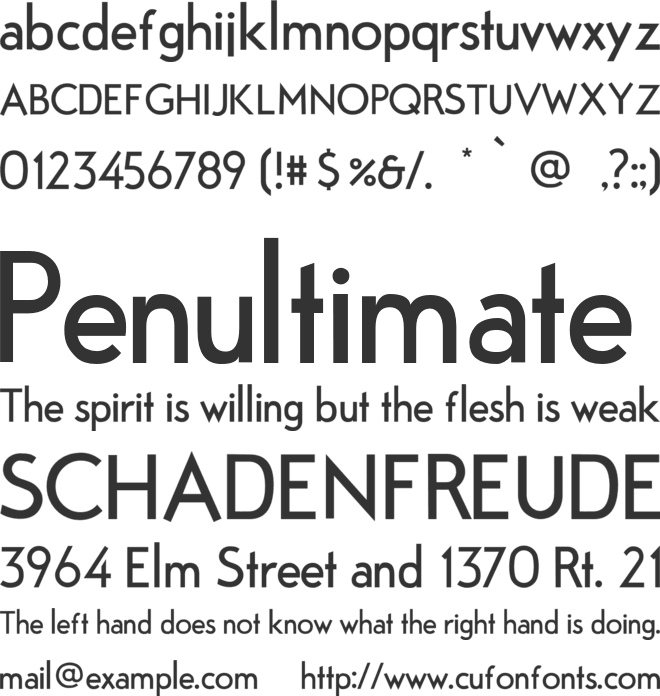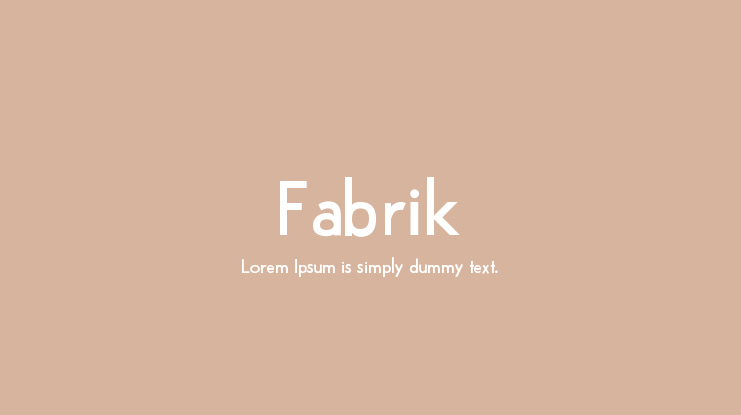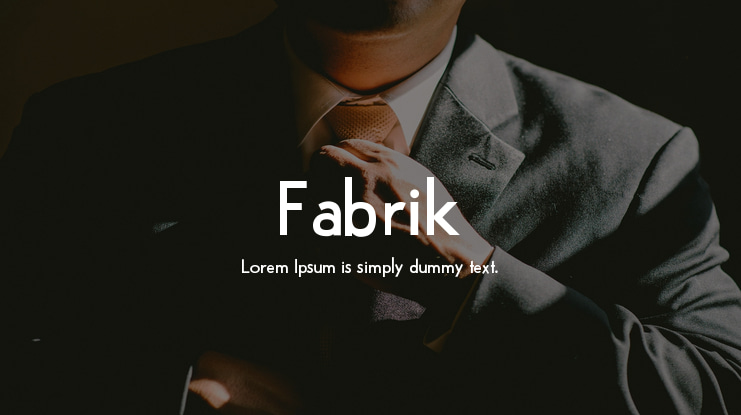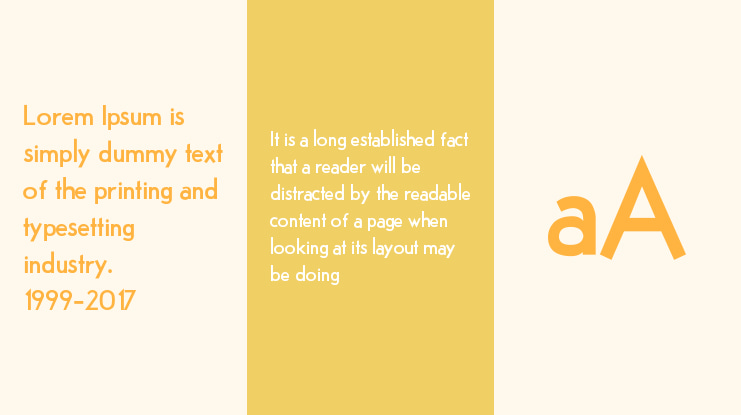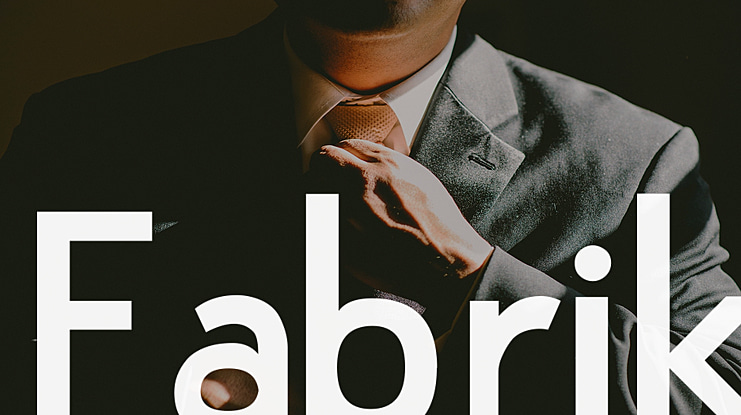
Fabrik Font Family
One of Uwe Borchert’s near-lost fonts. Fabrik is an industrial grottesk of the 1920s. It is based on Beteckna v0.2 and influenced by Erbar Grotesk, Drescher Grotesk BT, street signs in Karlsruhe, Dr. Klein’s set of figures for the Deutsche Reichsbahn, Bahnhofsfutura and the Bauhaus movement.
Fabrik is intended for signmaking and labelling at about 40 characters per line. It will not set text of any length gracefully or with any grace at all.
Fabrik does contain a long s (ſ) and an st ligature.